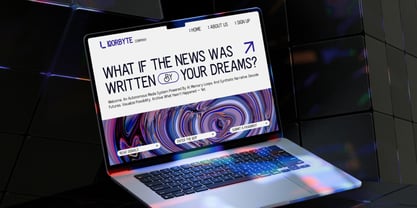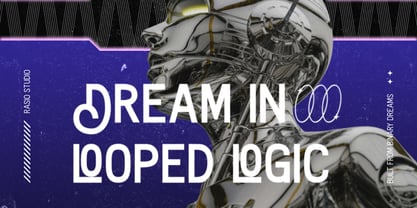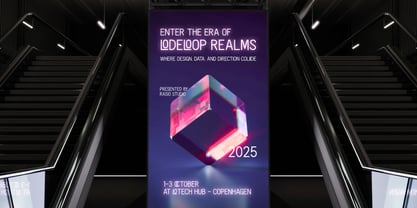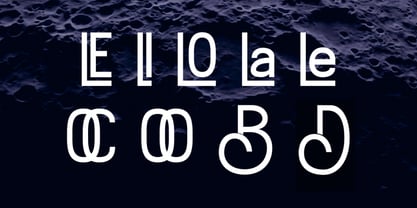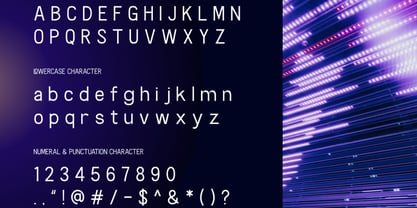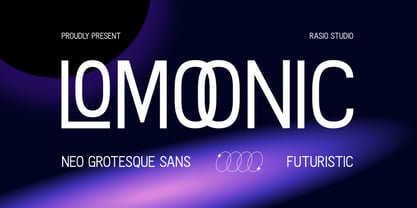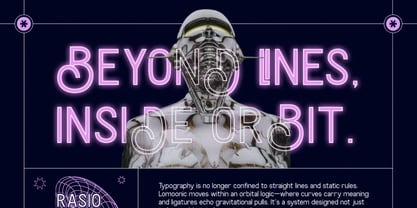
Lomoonic
by Rasio Studio
The Lomoonic Font Family was designed by Fajar Indra and published by Rasio Studio. Lomoonic contains 1 styles. More about this family
Lomoonic is a modern neo-grotesque sans serif typeface with a futuristic twist. Its tall proportions, sleek curves, and experimental ligatures give it a clean yet high-tech personality. Designed for forward-thinking branding, sci-fi aesthetics, and digital interfaces, Lomoonic seamlessly blends modern minimalism with a cybernetic, space-age vibe. The font includes uppercase and lowercase characters, numerals, punctuation, and stylistic alternates making it ideal for standout designs across both print and screen. Suitable for tech company branding, digital interface design, sci-fi posters, music covers, space-themed visuals, futuristic product packaging, web banners, startup decks, gaming UI, VR/AR projects, modern editorial layouts.
Designers: Fajar Indra
Current Foundry: Rasio Studio